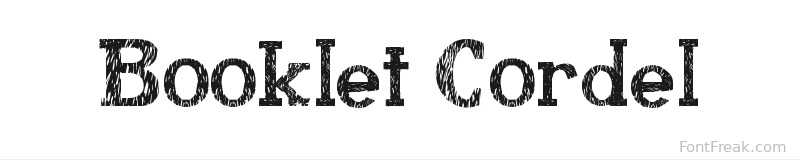
Booklet Cordel
About Booklet Cordel
Booklet Cordel is a distinctive display typeface designed by Galdino Otten in 2013, showcasing a unique blend of artistic flair and readability. This font falls under the decorative category, characterized by its playful, hand-drawn aesthetic that captures the essence of traditional Brazilian cordel literature. The stroke weight varies throughout the design, giving it a dynamic, engaging presence. With moderate contrast between thick and thin strokes, Booklet Cordel maintains legibility while offering an artistic touch. The spacing is intentionally loose, enhancing the font's whimsical quality and making it ideal for a variety of creative applications.
This typeface is particularly well-suited for use in wedding invitations, where its charming style can evoke a sense of warmth and celebration. It also shines in movie posters, lending an air of creativity and uniqueness to cinematic promotions. Restaurant menus benefit from its decorative elements, which can add character and attract diners with an inviting atmosphere. Additionally, Booklet Cordel works wonderfully for children’s book covers, where its playful design can engage young readers. The font appeals to a broad audience, including graphic designers, small business owners, and content creators looking to add a touch of personality to their projects.
What sets the Booklet Cordel font apart is its ability to blend artistry with functionality. Its handcrafted appearance creates a connection with the viewer, evoking nostalgia and warmth while maintaining clarity and readability. For those seeking to enhance their creative works, the Booklet Cordel font free download offers an opportunity to incorporate this unique typeface into any design project, ensuring it stands out in a crowded marketplace.